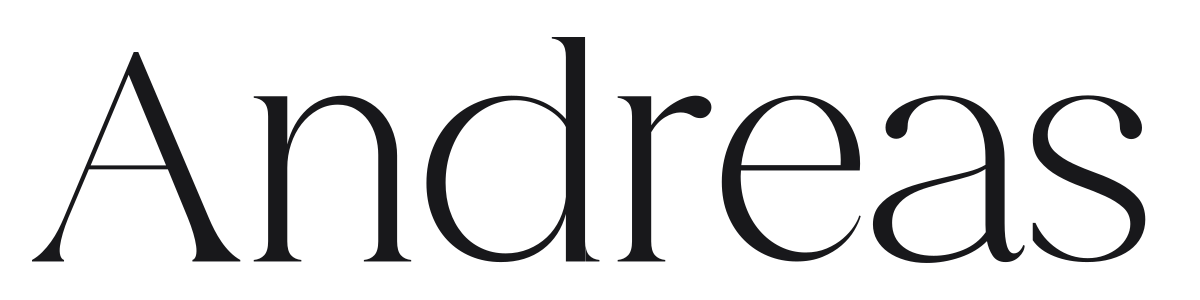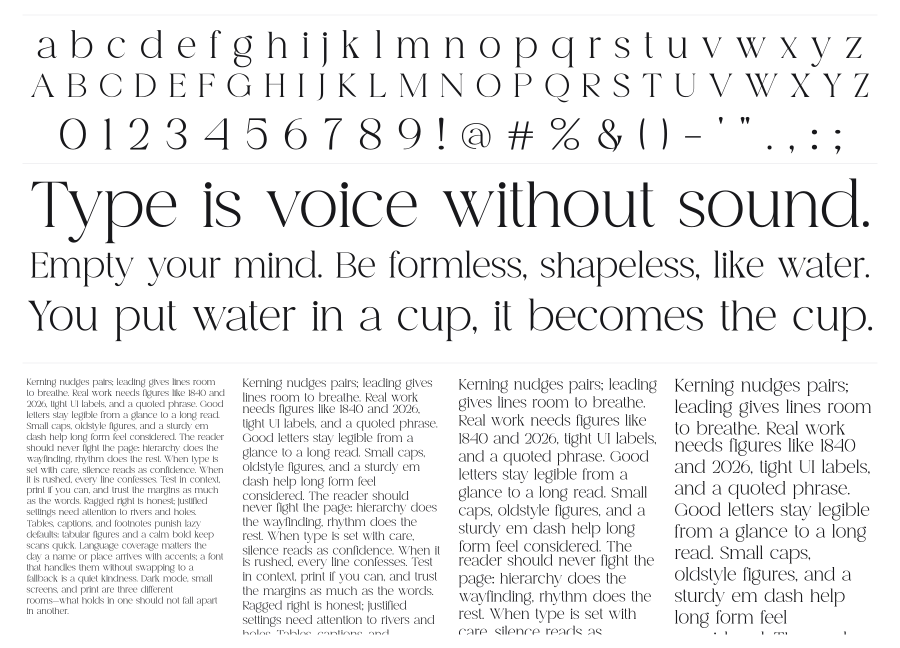
Andreas
Andreas is a high-contrast modern serif in the Didone tradition, built on extreme tension between thick stems and near-invisible hairlines. The light weight and open proportions give it a delicate, fashionable presence that suits editorial headlines and luxury branding. It carries the refined restraint of a high-end magazine masthead.